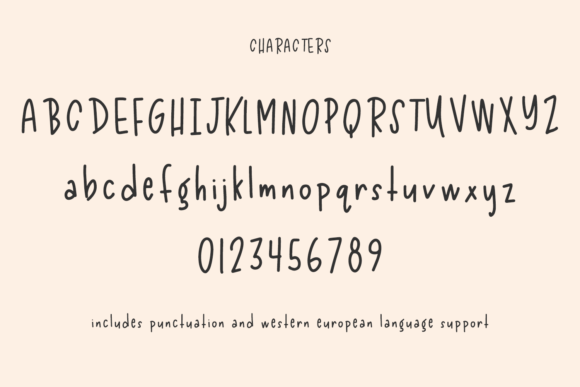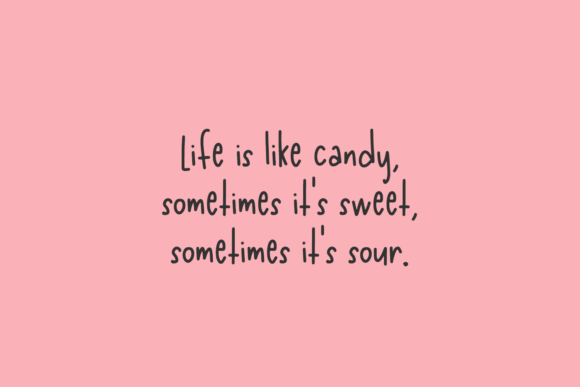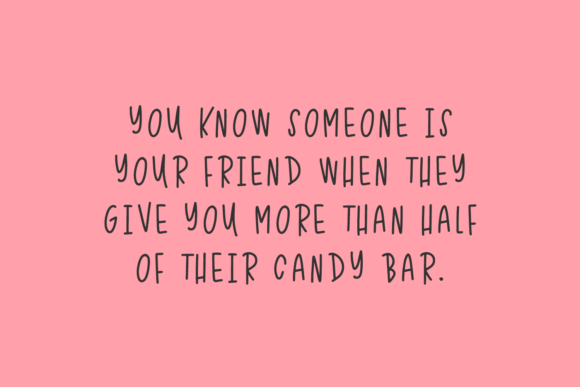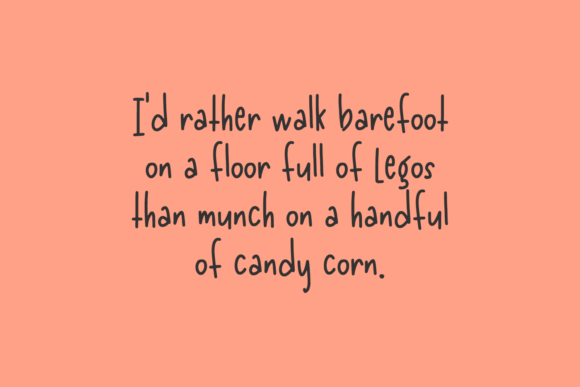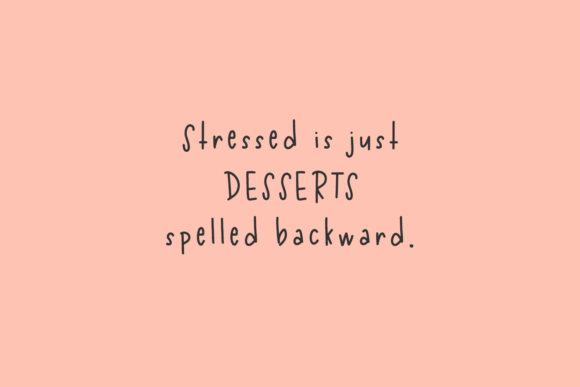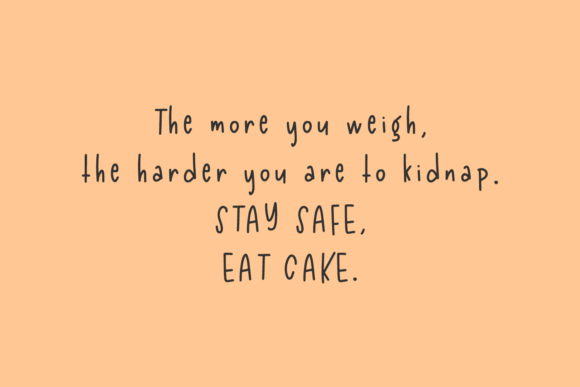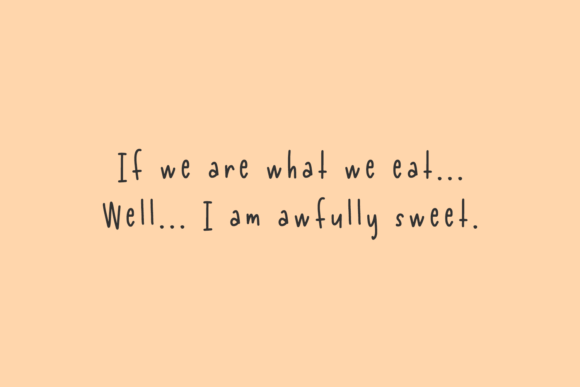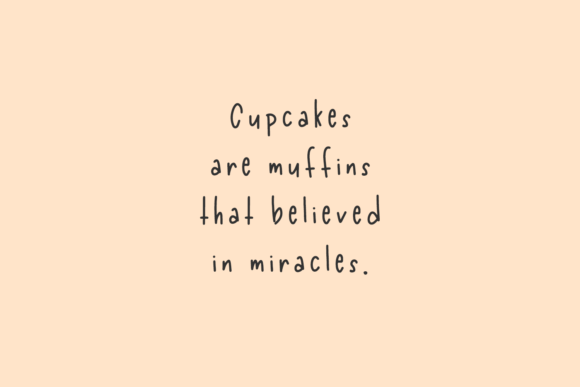
Candy Wrapper Font
About Candy Wrapper Font
Candy Wrapper is a simple and friendly handwritten font. It can be used for various purposes such as logos, wedding invitations, headings, t-shirts, letterhead, signage, labels, news, posters, badges and so much more.